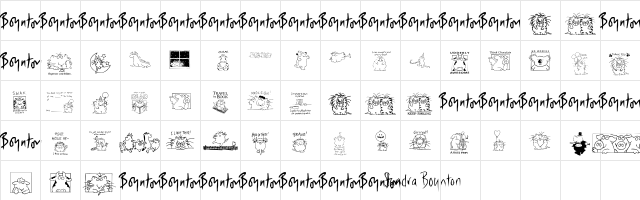
Boynton Bats Regular
Design Context for Boynton Bats
Boynton Bats is a composed and adaptable typeface that performs quietly and consistently across a wide range of design contexts.